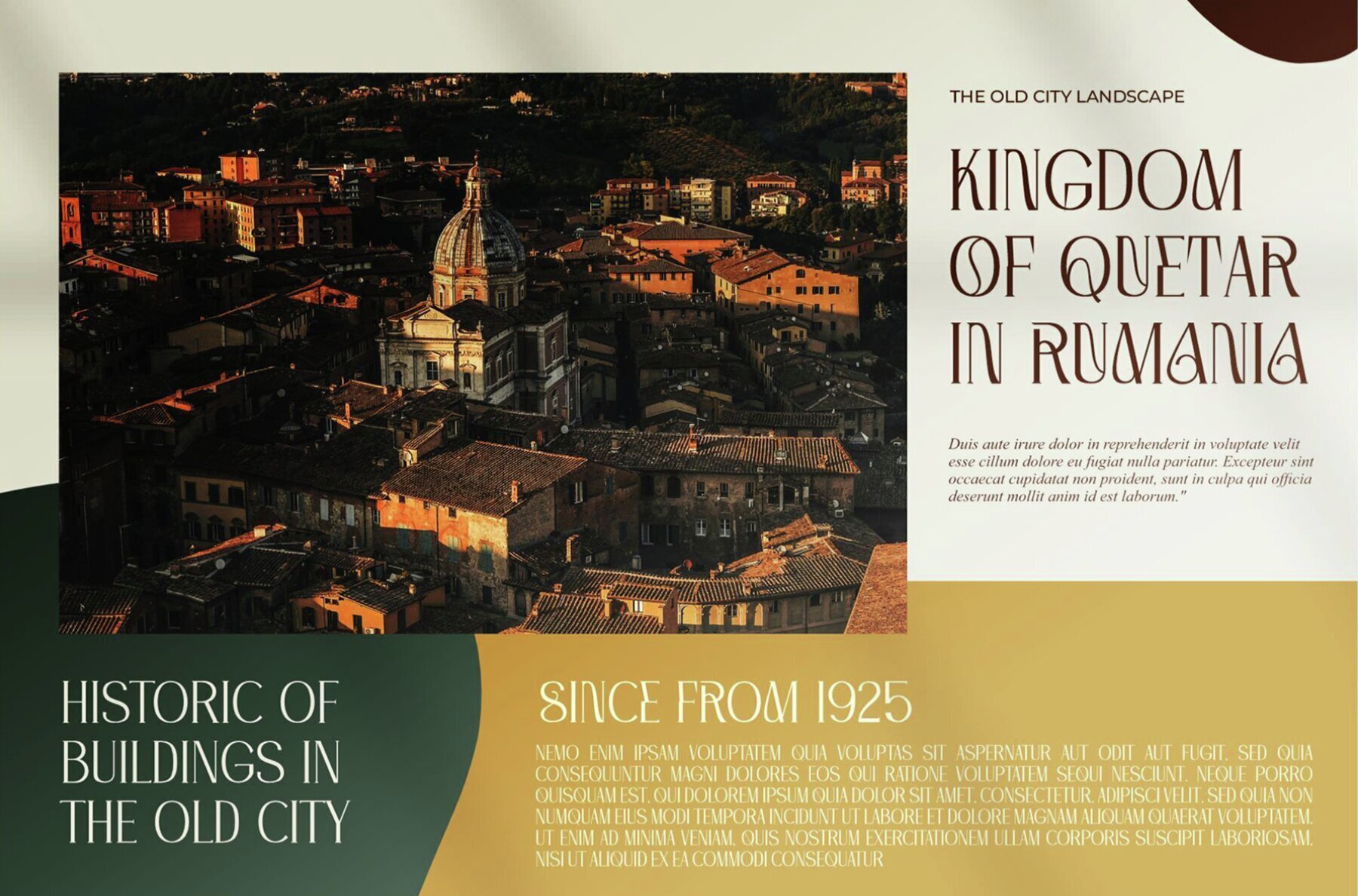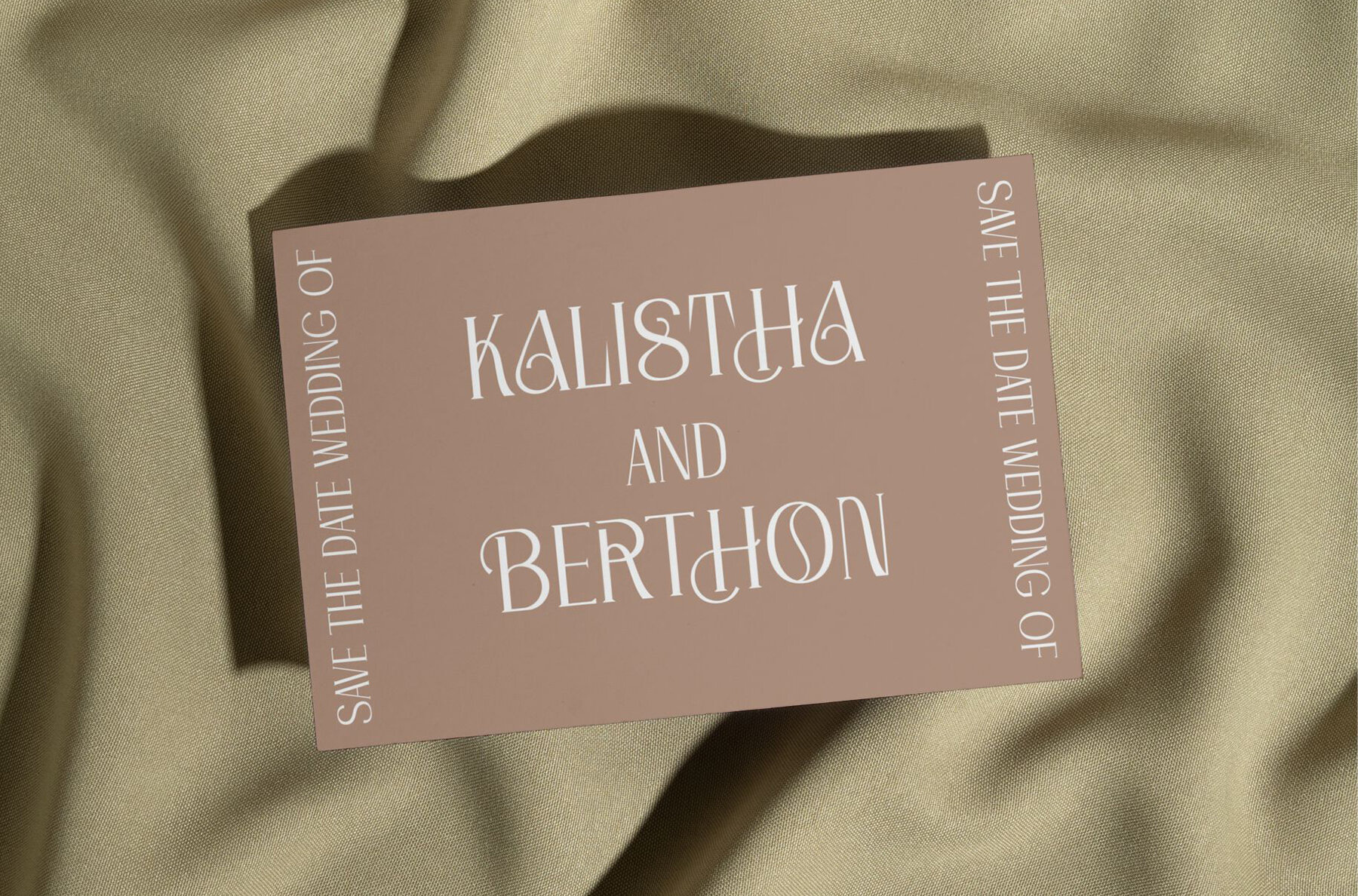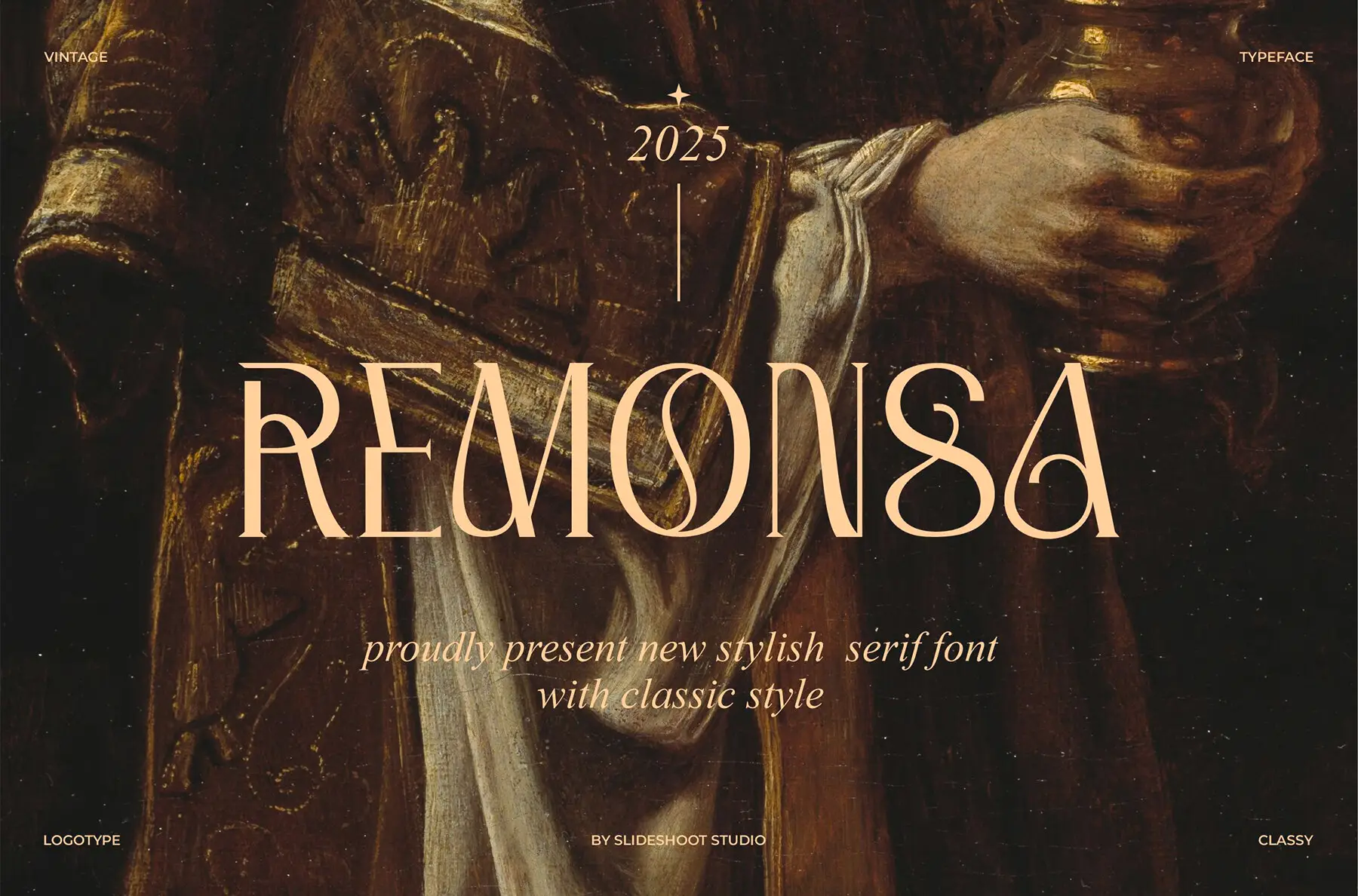
Remonsa Font
Remonsa
This serif font offers a blend of tradition and elegance, making it ideal for numerous creative projects, from invitation cards to movie titles. Features:Remonsa: Classic Serif for Timeless Designs